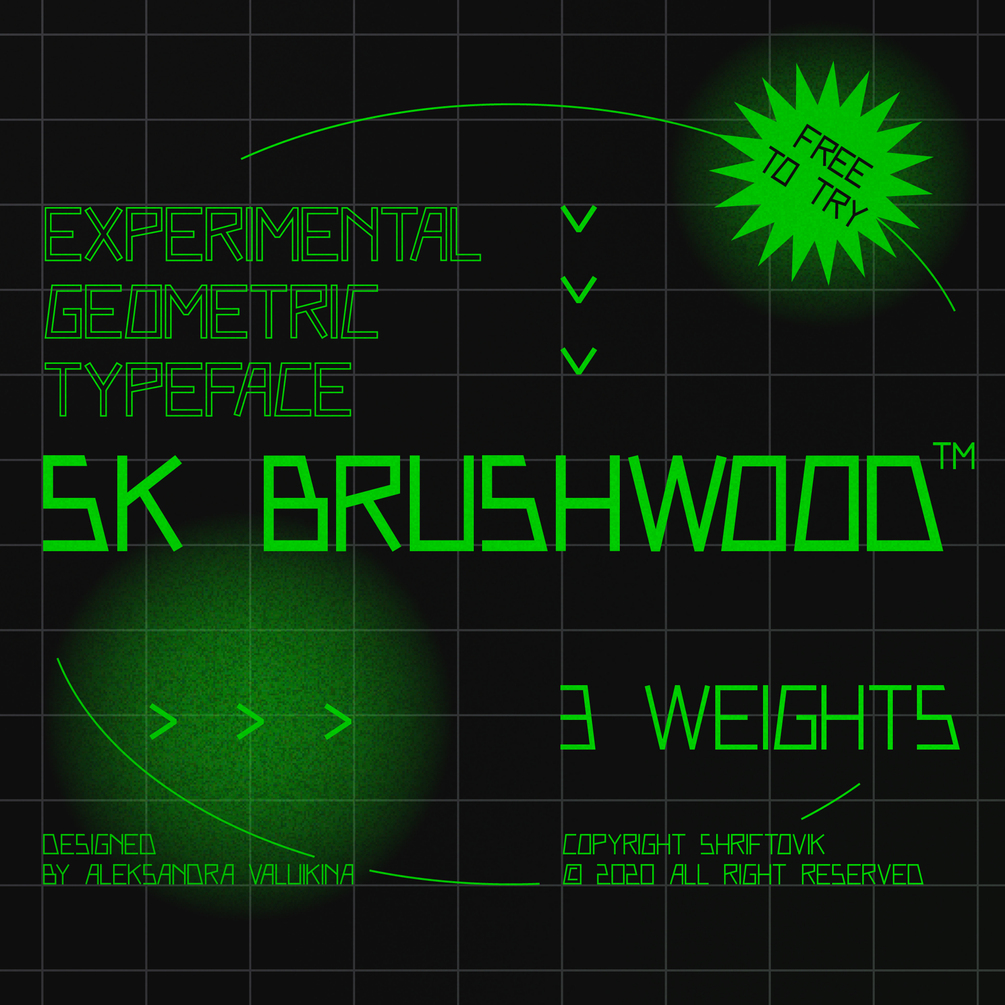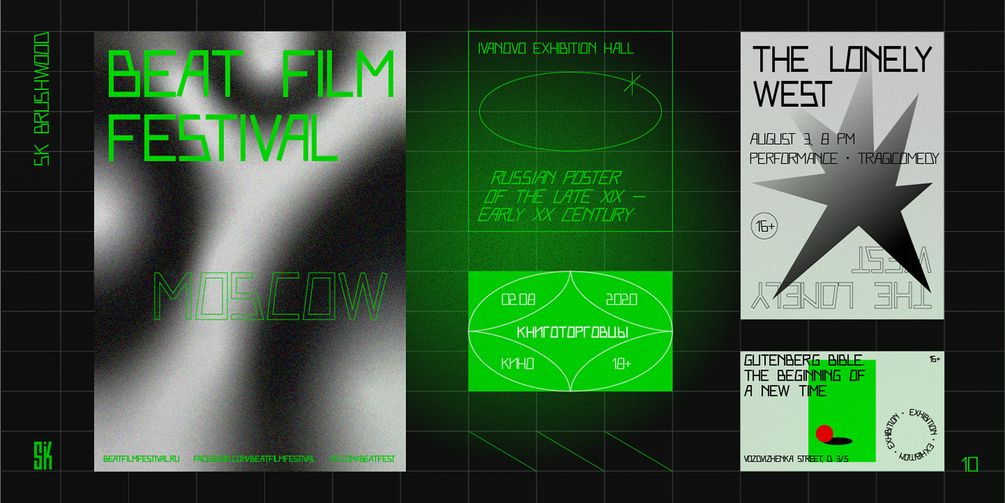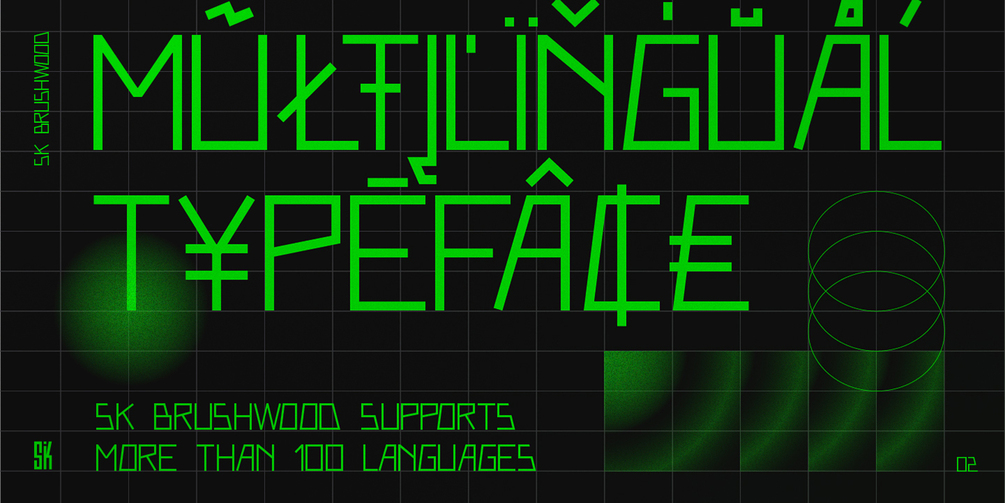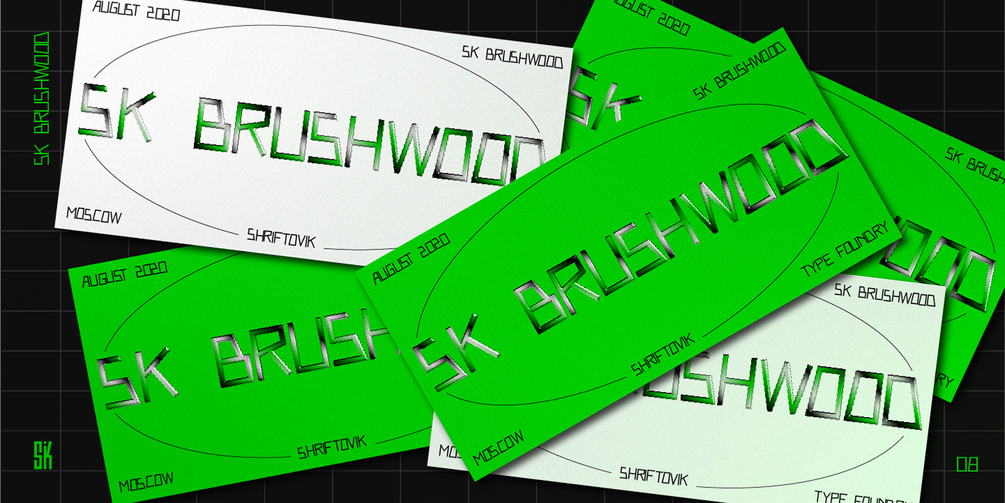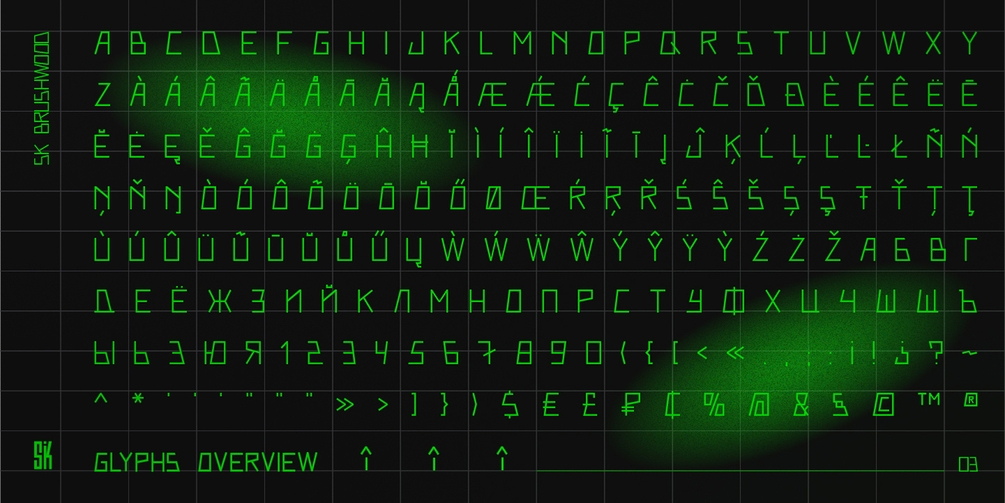
SK Brushwood
SK Brushwood™ is an experimental geometric font based on chaotic lines. It is inspired by the Greek stone script, but nevertheless it is modern. The main component of the letter shape is straight and sloping lines ending in straight corners, which makes it look like brushwood. This is why the font gets its name. The SK Brushwood font is perfect for headlines, posters, print work, and the Internet.